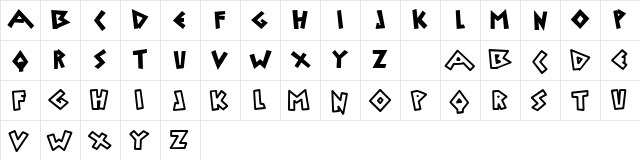
Uylus Regular
Design Context for Uylus
Uylus is a composed and adaptable typeface that performs quietly and consistently across a wide range of design contexts.